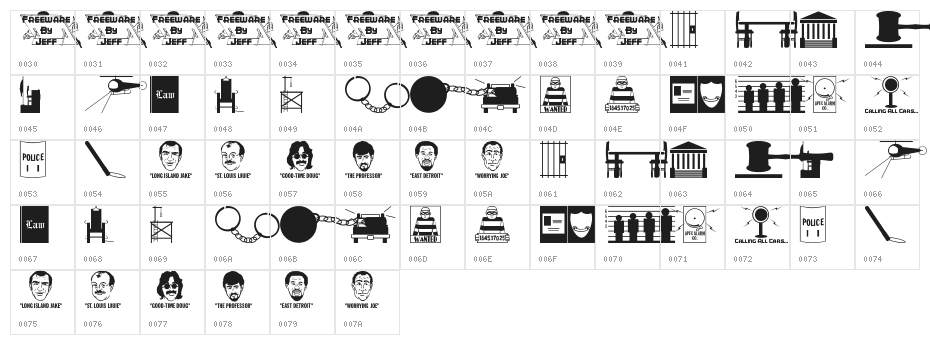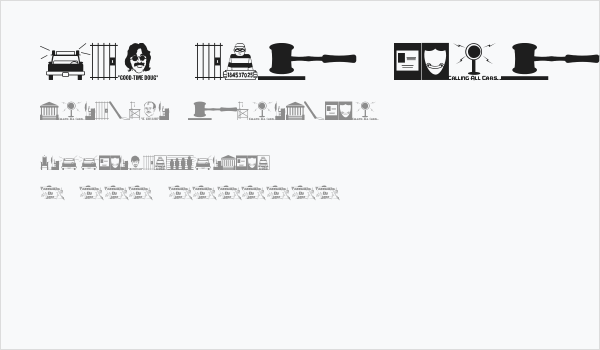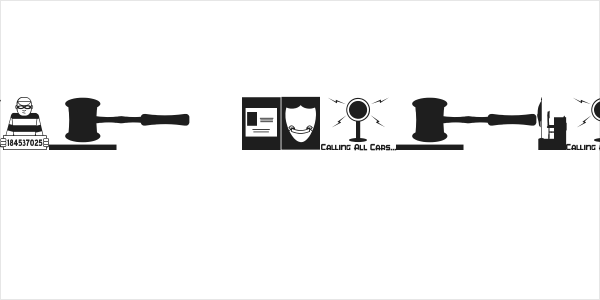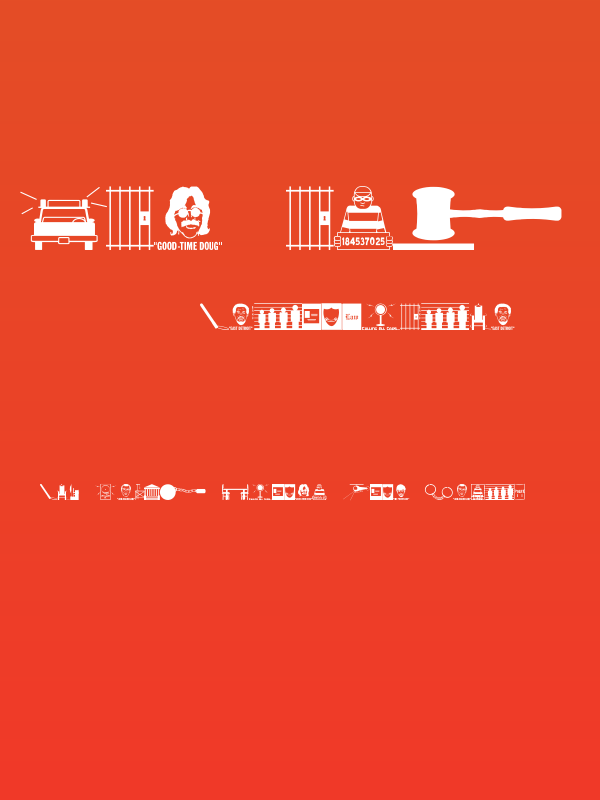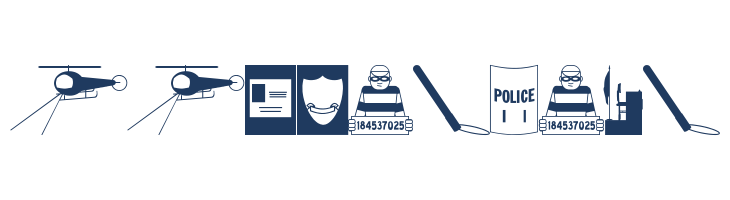
Law and Order JL Font
This is a decorative font featuring a series of law enforcement and crime-related illustrations. Each character is represented by a unique graphic, such as police badges, handcuffs, mugshots, and various crime scene elements. The font is highly thematic, focusing on a law and order motif, making it suitable for projects that require a strong visual narrative related to crime, justice, or law enforcement. The characters are detailed and intricate, providing a storytelling element through visual representation rather than traditional letterforms.
| Use Case | Logos, Posters, Thematic Designs |
| Proposed Projects | Ideal for crime-themed posters, educational materials on law enforcement, or creative projects needing a strong visual narrative related to justice and crime. |